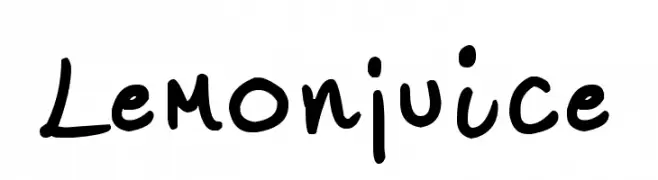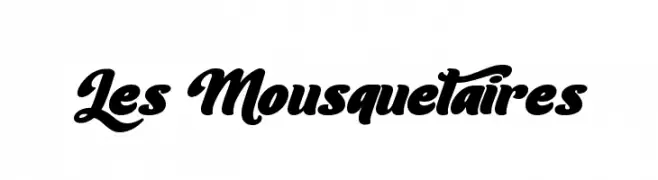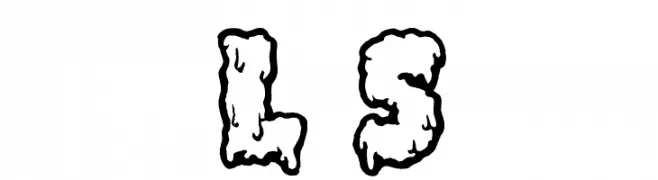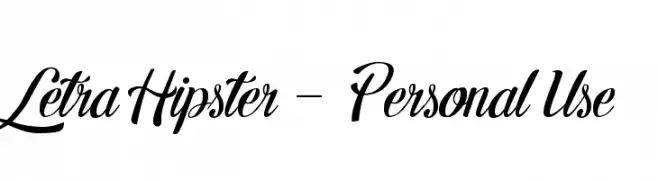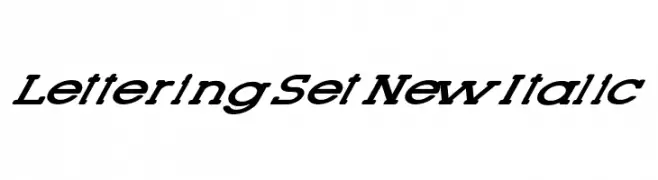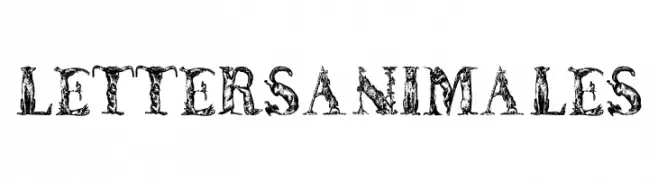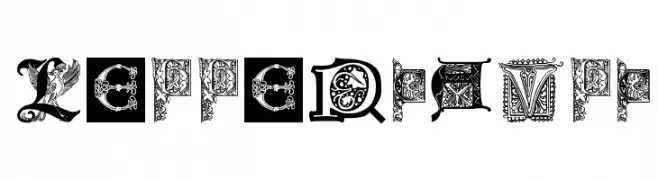
• Lemon Brownies
A playful, bold script font with smooth curves and rounded edges.
• Lemonjuice
A bold, handwritten font with a playful and dynamic style.
• Les Mousquetaires
A bold, cursive font with dramatic flourishes and a modern calligraphic style.
• Lethal Slime
A bold, dripping font with a playful, eerie vibe perfect for spooky themes.
• Letra Hipster - Personal Use
• Lettering Set New Italic
An elegant italic font with a modern yet classic style.
• Lettering Set New Italic
A dynamic italic font with smooth, flowing curves and a sophisticated style.
• LettersAnimales
A decorative font featuring intricate animal motifs within each letter.
• LettersBats
An ornate and decorative font with intricate illustrations in each letter.
• letting the cable sleep
A modern, interconnected font with a flowing, continuous line design.